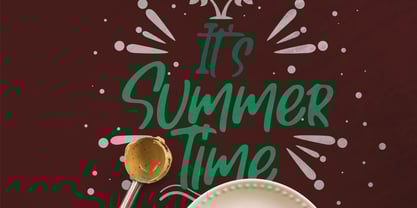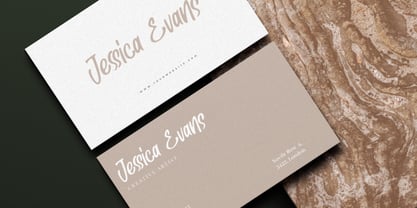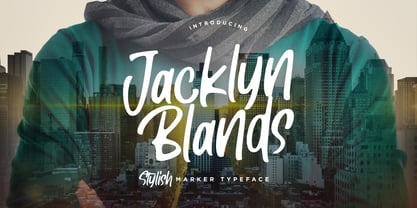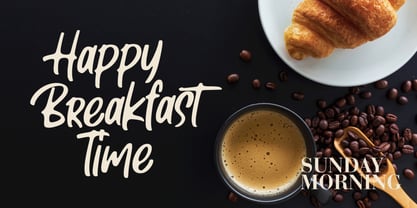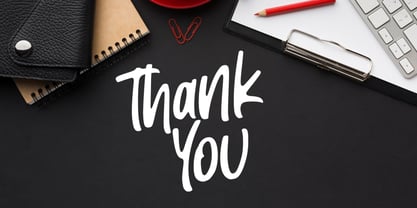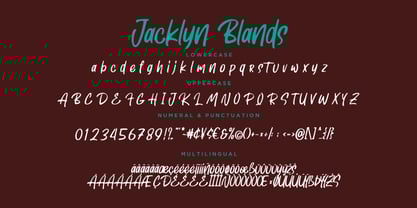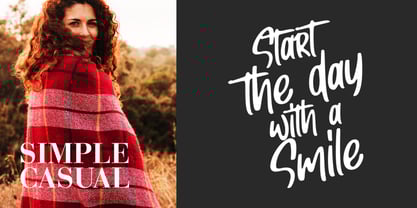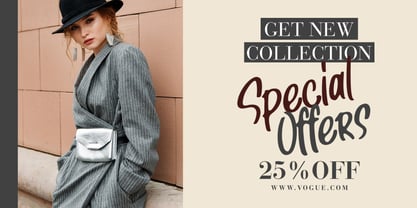
Jacklyn Blands
von Creatype Studio
Die Schriftfamilie Jacklyn Blands wurde von Rian Rahardi entworfen und von Creatype Studio veröffentlicht. Jacklyn Blands enthält 1 Stile. Mehr über diese Familie
Jacklyn Blands is a bold, brush marker typeface that bursts with energy and authenticity. Designed with casual strokes and expressive curves, this font delivers a confident, street-smart vibe that commands attention.
If your design needs to shout with style and speak with attitude, Jacklyn Blands delivers. This bold brush typeface brings the raw energy of street culture into your work—instantly making it feel more alive, creative, and real.
Designer: Rian Rahardi
Foundry: Creatype Studio